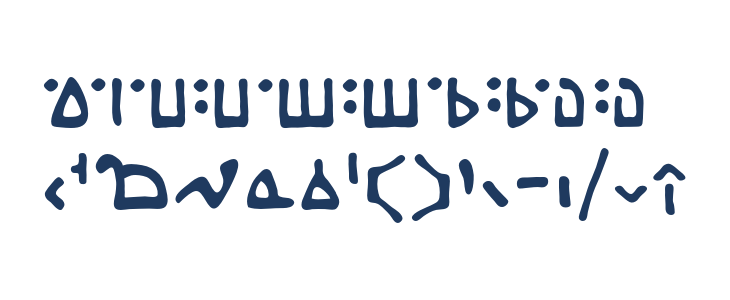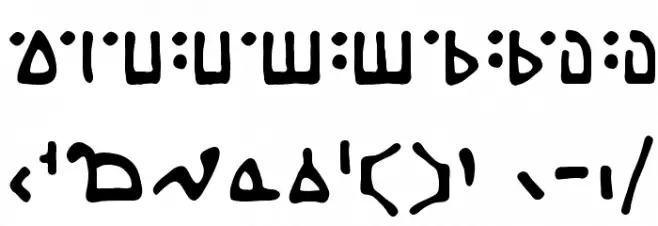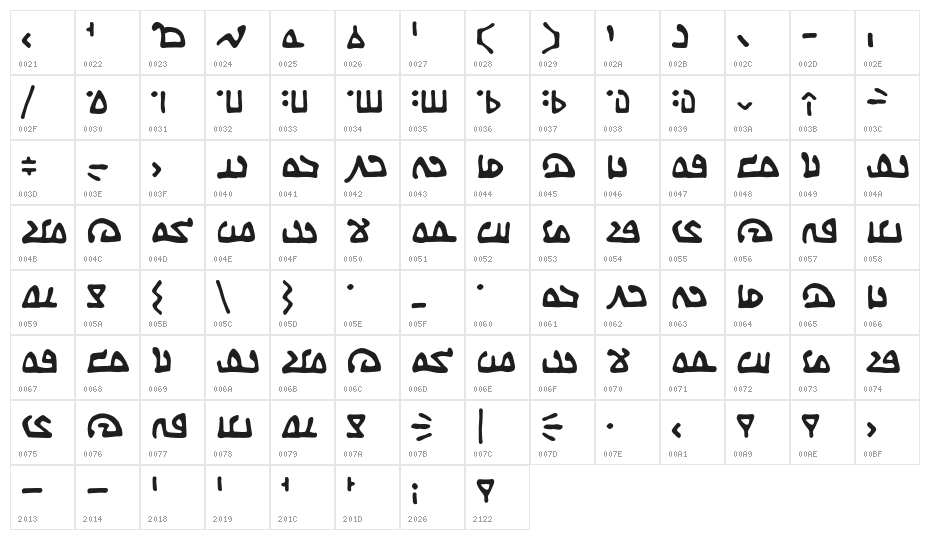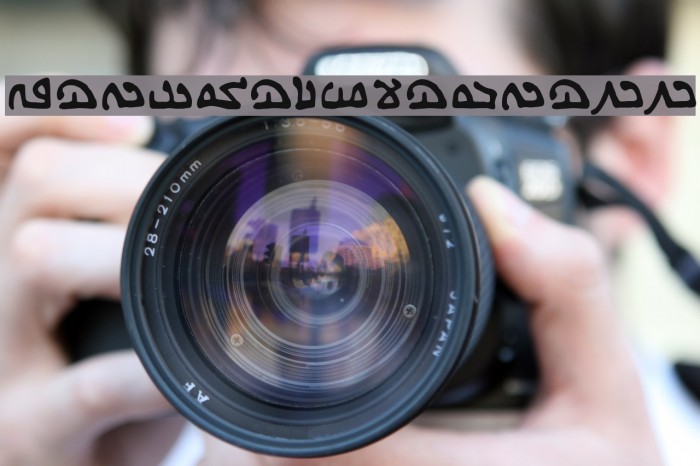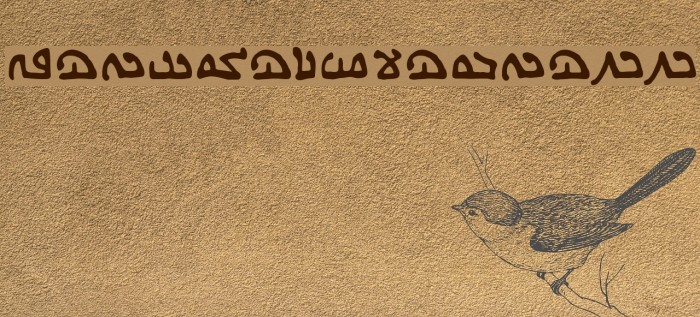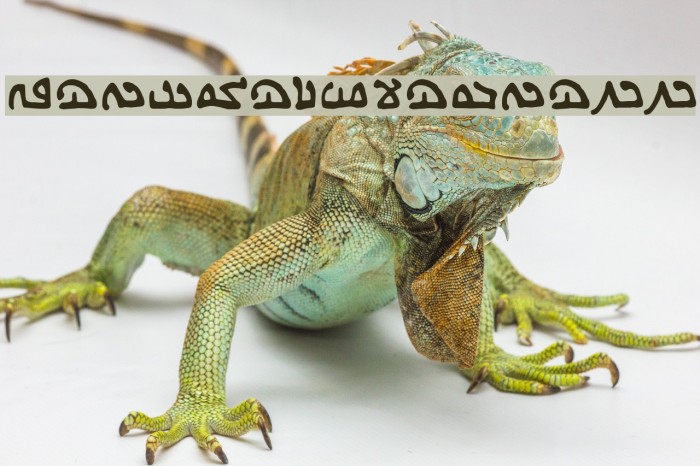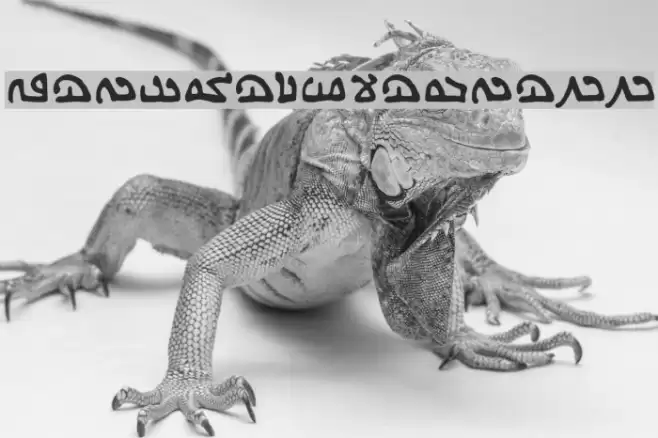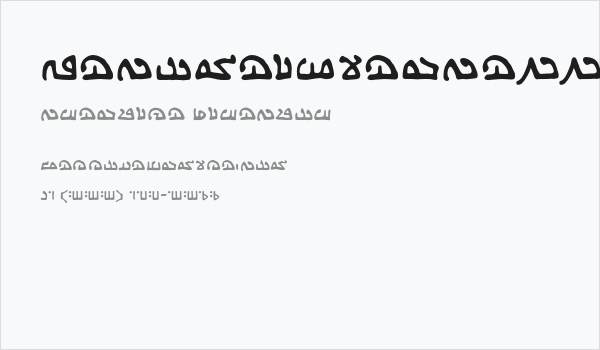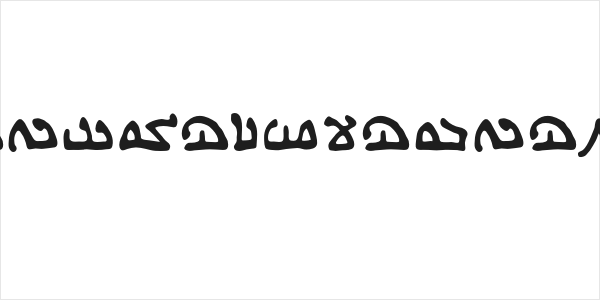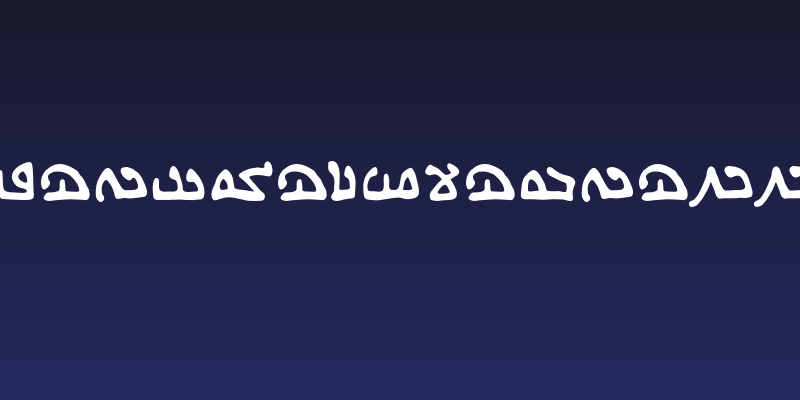
WeComeInPeaceBB Font
WeComeInPeaceBB Description
This font features a unique, alien-like script that evokes a sense of mystery and otherworldliness. The characters are composed of bold, rounded shapes with a consistent thickness throughout, creating a uniform appearance. Each glyph is distinct, with a playful yet cryptic design that suggests a futuristic or extraterrestrial theme. The font's style is highly decorative, making it ideal for creative projects that require a touch of the unusual or the fantastical. Its bold strokes ensure high visibility, while the rounded edges soften the overall look, adding a friendly and approachable feel despite its enigmatic nature.
| Overall Style | Futuristic, Decorative |
| Use Case | Logos, Posters, Titles |
| Proposed Projects | Ideal for sci-fi themed posters, video game titles, movie credits, or any project needing a mysterious, extraterrestrial touch. |